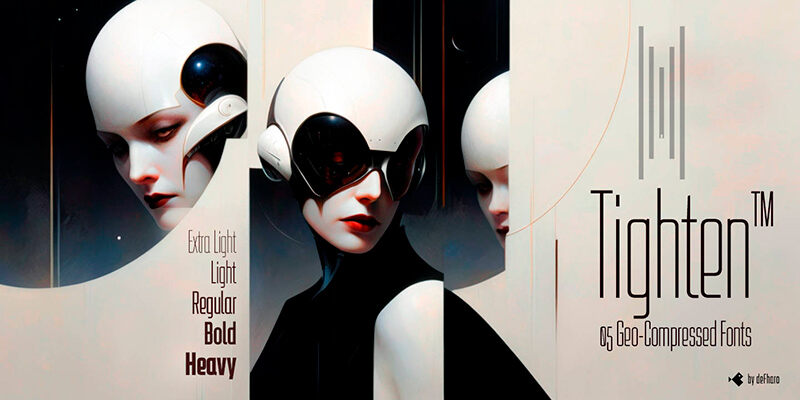
Tighten, crafted by Fernando Haro, exudes a sophisticated charm that demands attention. The sans-serif design is sleek and contemporary, with a light and condensed structure that creates a striking visual impact. Its slender characters offer remarkable legibility without compromising on style, making it perfect for conveying modern elegance.
This font shines in minimalistic designs, where every millimeter counts. It's ideal for branding, editorial layouts, and digital interfaces that seek to communicate clarity with a touch of finesse. Tightype's distinctive aesthetic ensures it stands out in both headlines and body text.
Use Tightype to elevate your creative projects with its unique blend of precision and refinement. Its ability to deliver an impressive look while maintaining readability makes it the go-to choice for designers aiming to encapsulate modern sophistication in their work.
Tightype is a compressed sans serif typeface family, notable for its elegance derived from an exaggerated vertical proportion. His style is a fusion between art-deco and futurism, which gives him an unmistakable and highly readable presence in any medium.